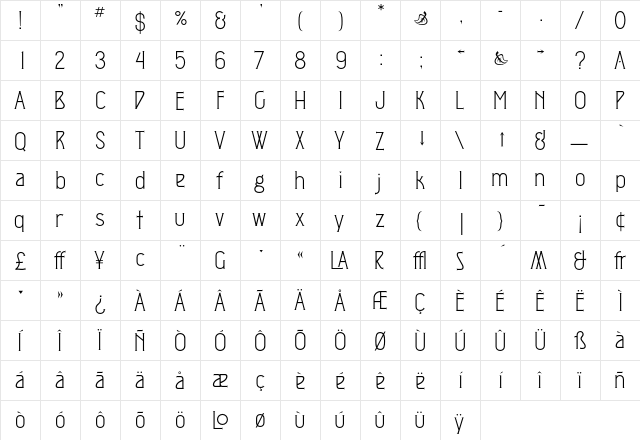
JMExpositionPlainTwo Regular
Design Context for JMExpositionPlainTwo Typeface
JMExpositionPlainTwo takes a measured approach to typography — its balanced proportions and neutral character make it a reliable workhorse for both digital and print work.